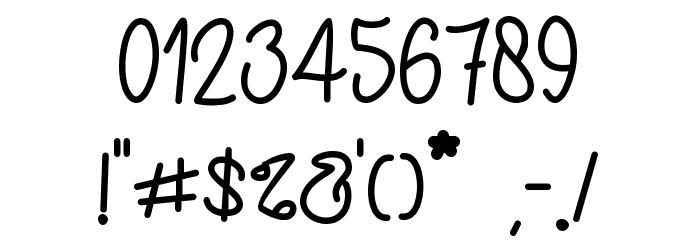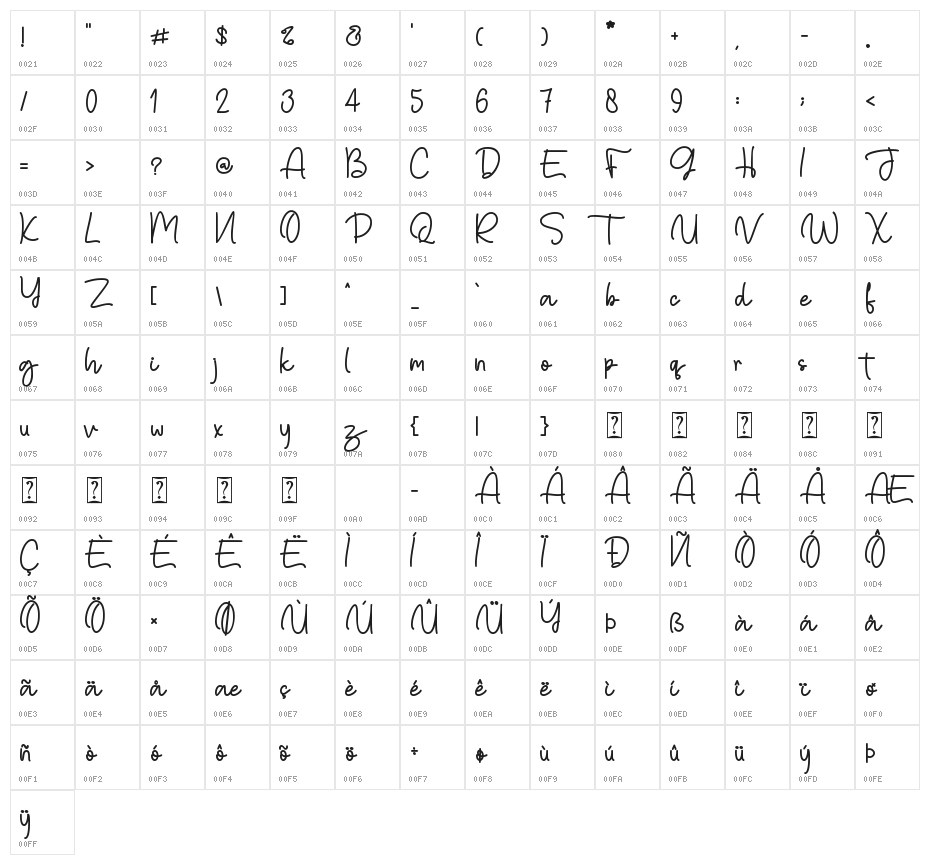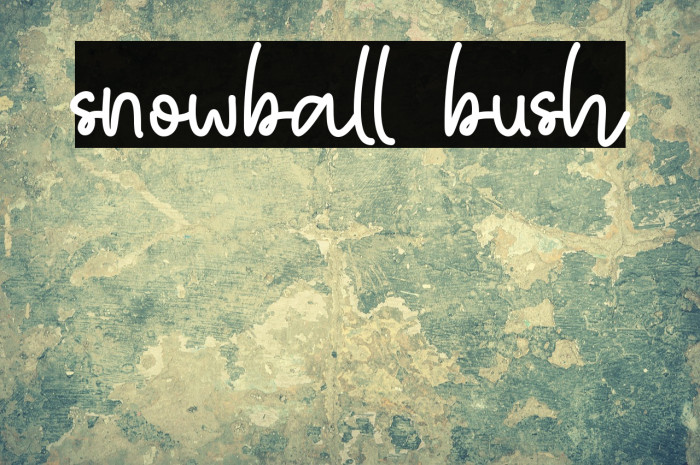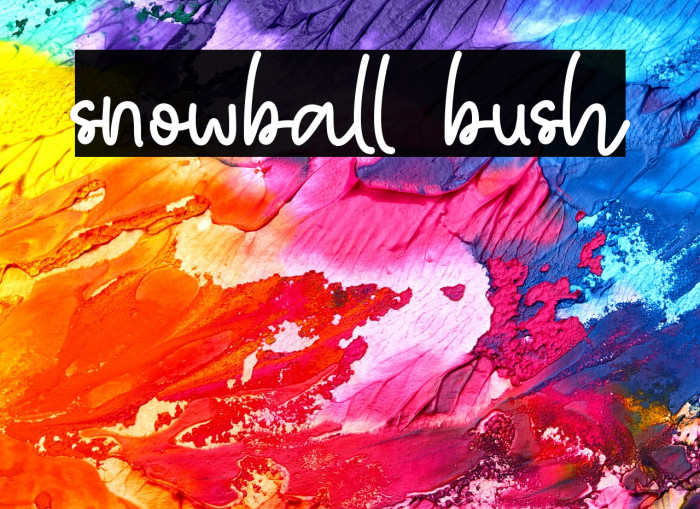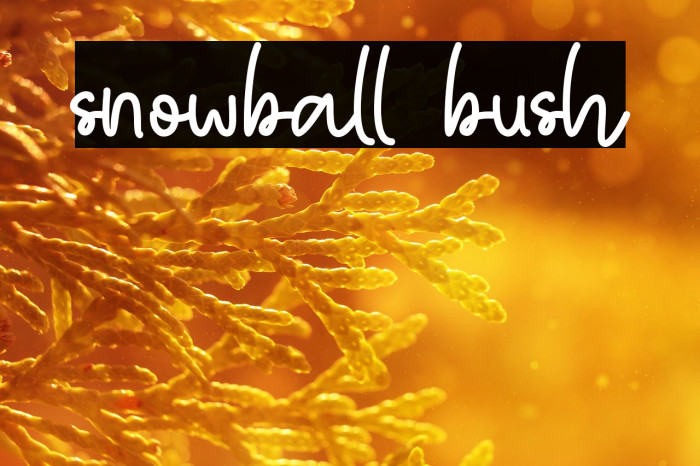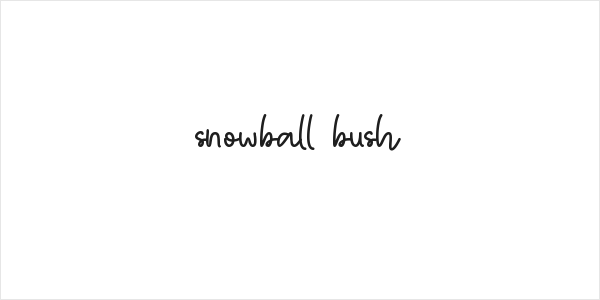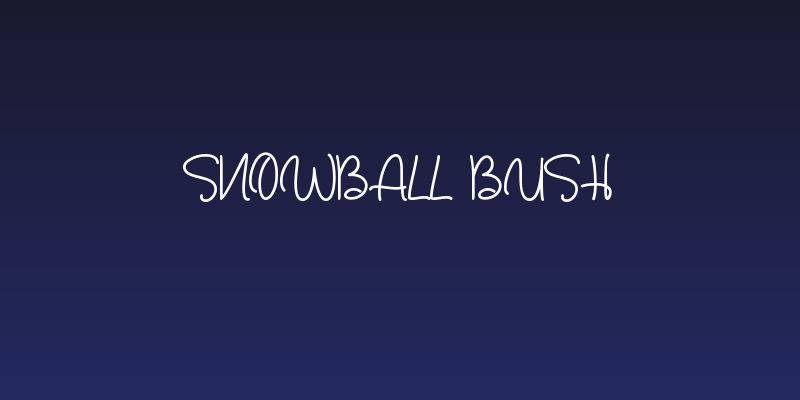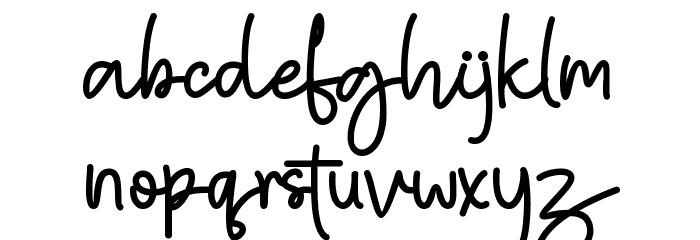
snowball bush Font
snowball bush Description
This font features a playful and casual handwritten style, characterized by its fluid and dynamic strokes. The uppercase letters are tall and slightly narrow, with a whimsical flair that adds personality. The lowercase letters maintain a consistent flow, with some letters featuring loops and curves that enhance the handwritten feel. The numerals are bold and clear, making them easily readable. Special characters are creatively designed, adding to the overall charm of the font. This font's informal and friendly appearance makes it suitable for projects that require a personal touch.
| Proposed Projects | Ideal for greeting cards, invitations, personal branding, and social media graphics. |